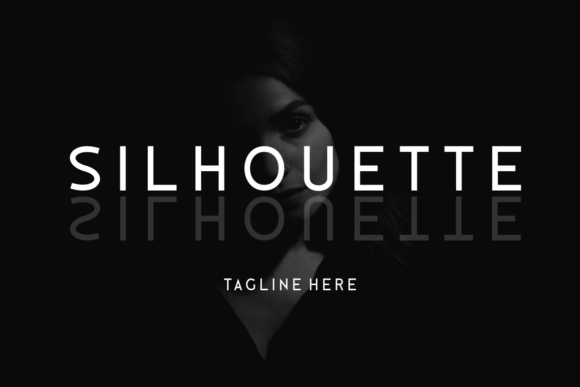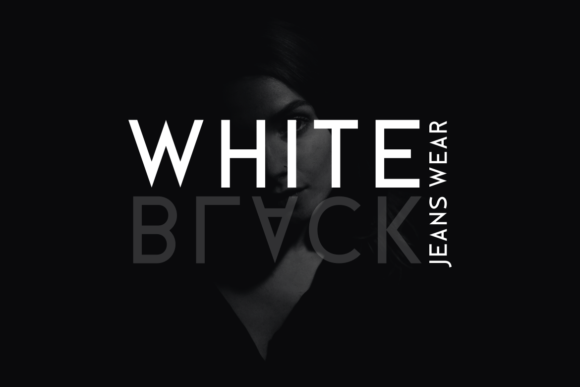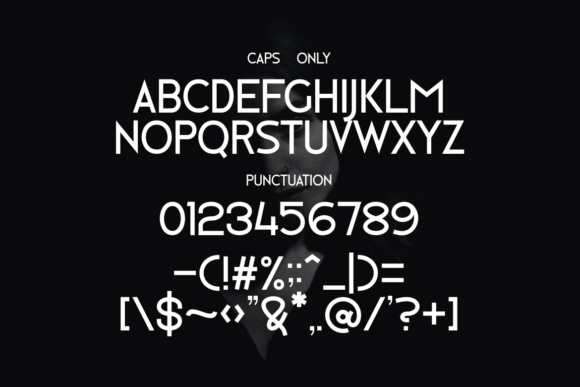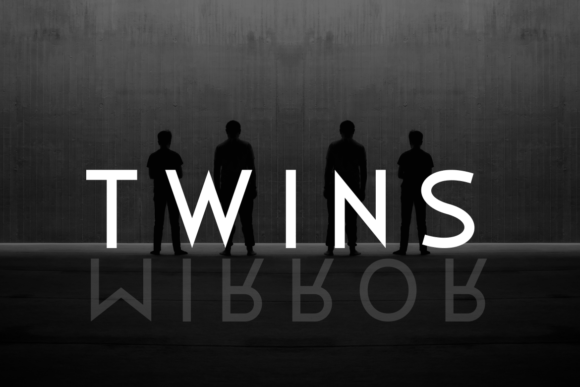
Unleash Your Creativity with the Power of Cavigen Font
Have you ever found yourself stuck in front of a blank page, staring at a cursor, waiting for inspiration to strike? That’s where the perfect font can make all the difference. It’s like a spark that ignites the flame of creativity, guiding your words and ideas into something truly special. And that’s exactly what the Cavigen Font is designed to do – elevate your creations and leave a lasting impression.
This bold and assertive sans serif font is the ultimate addition to any designer’s library. Whether you’re working on a project that demands attention or simply want to add a touch of sophistication, the Cavigen Font has the potential to take your work to the next level. With its versatility and style, it’s an invaluable asset for designers looking to make a statement.
Cavigen Font Key Features
- Font Family: Cavigen Font is a sans-serif font family with a modern and clean design.
- Font Size and Style: The font family includes multiple weights and styles, ranging from Thin (100) to Black (900), and includes italic and bold styles.
- Resolution and Compatibility: Designed for high-resolution displays, the font is optimized for use at 72 dpi, 144 dpi, and 300 dpi, ensuring clear readability on various devices.
- Unique Characteristics: Cavigen Font features a unique blend of modern and minimalist design elements, making it suitable for a wide range of applications, from corporate branding to digital interfaces.
- Character Count: The font family includes over 700 characters, including Latin, Cyrillic, and Greek alphabets, as well as a range of punctuation and symbol glyphs.
Cavigen Font Review
As a designer, I was excited to dive into the Cavigen Font and see what it had to offer. Overall, I found it to be a solid choice for any project that requires a clean and modern look.
- ✨ The font’s clean lines and minimalistic design make it easy to read, even at small font sizes.
- ✨ The font is highly versatile and can be used for a wide range of applications, from body text to headings.
- ✨ The font’s modern aesthetic gives any project a sleek and contemporary feel.
- ⚠️ The font may not be the best choice for projects that require a lot of emphasis or bold statements, as it can come across as too minimalist.
- ⚠️ Some users may find the font to be too similar to other clean sans-serif fonts, making it difficult to stand out.
The Cavigen Font is a great choice for designers who want a clean and modern look without a lot of flair. While it may not be the most exciting font, it gets the job done and is easy to work with. I would definitely consider using it for future projects, especially when a minimalist aesthetic is desired.
Tips for Getting the Most Out of Cavigen Font
Here are some tips to help you get the most out of Cavigen Font:
- Use Cavigen Font for headings and titles to add a touch of elegance.
- Pair Cavigen Font with other fonts to create a unique and interesting typography.